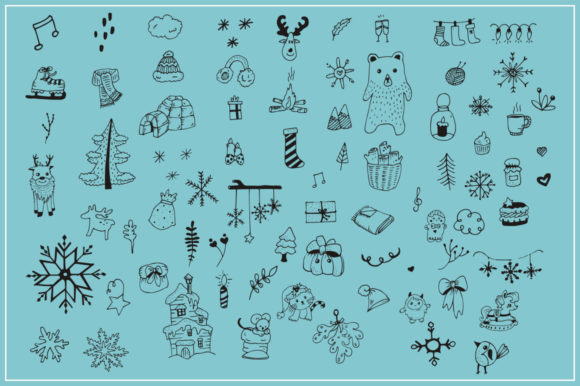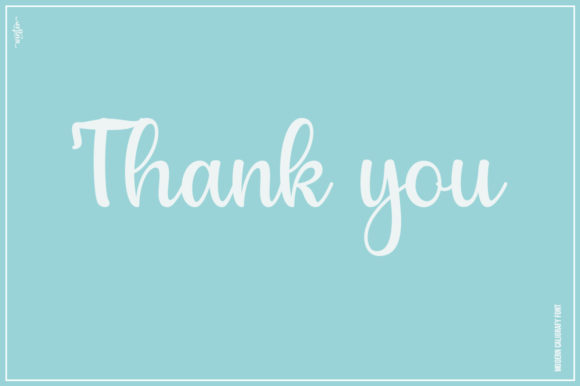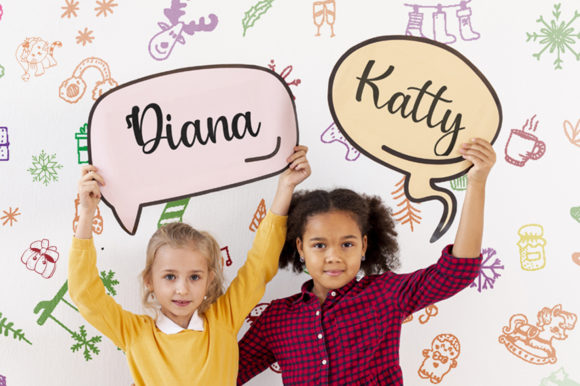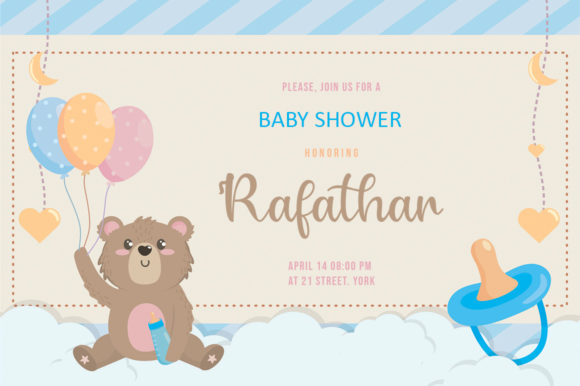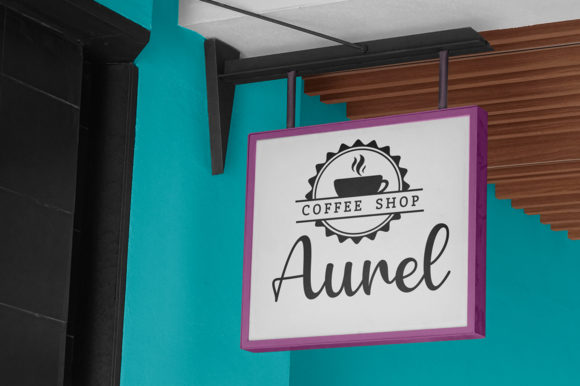
About Winter Font
Winter is a sweet and flowing handwritten font. It looks stunning on wedding invitations, thank you cards, quotes, greeting cards, logos, business cards and every other design which needs a handwritten touch. It features a varying baseline, smooth lines, gorgeous glyphs and stunning alternates.